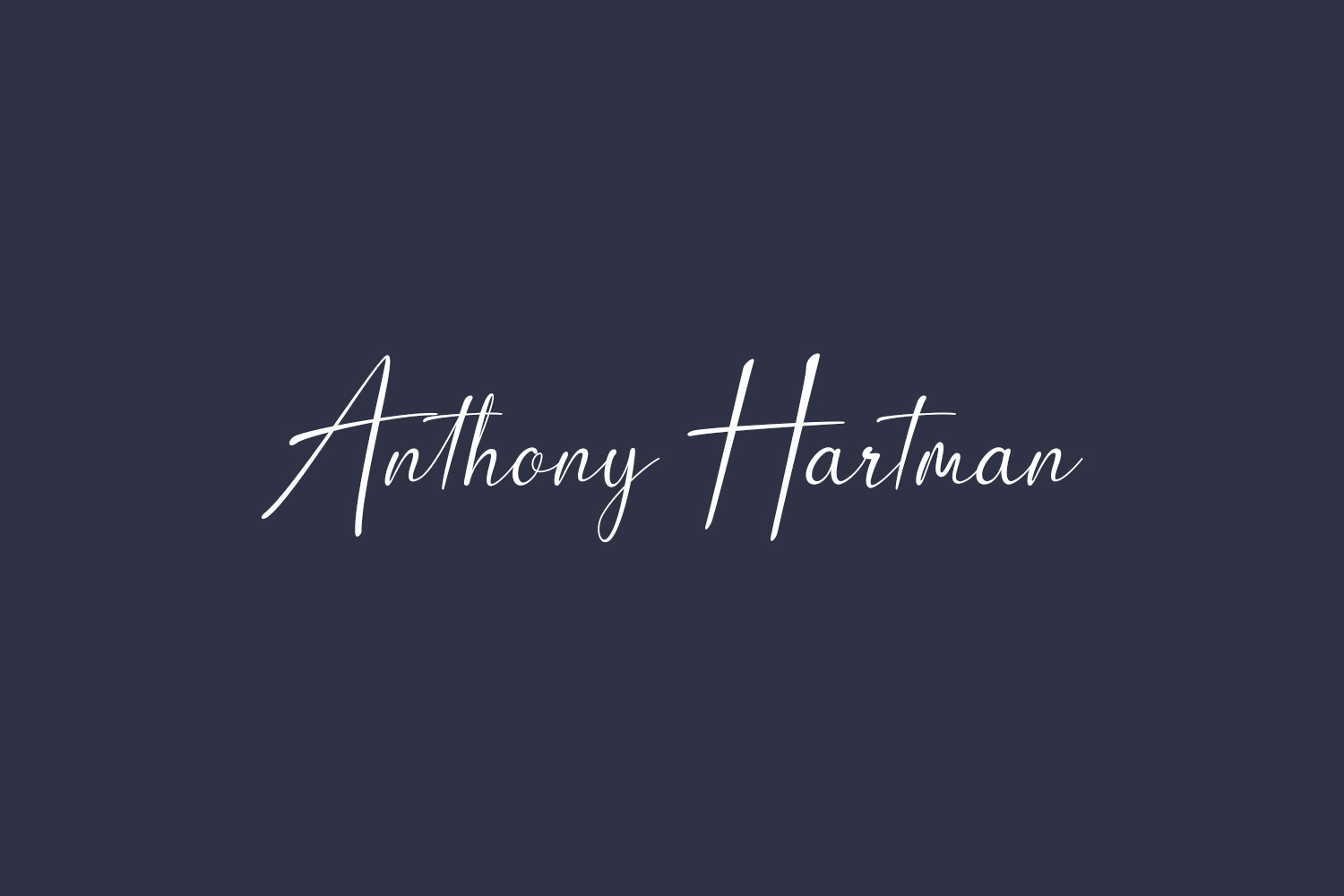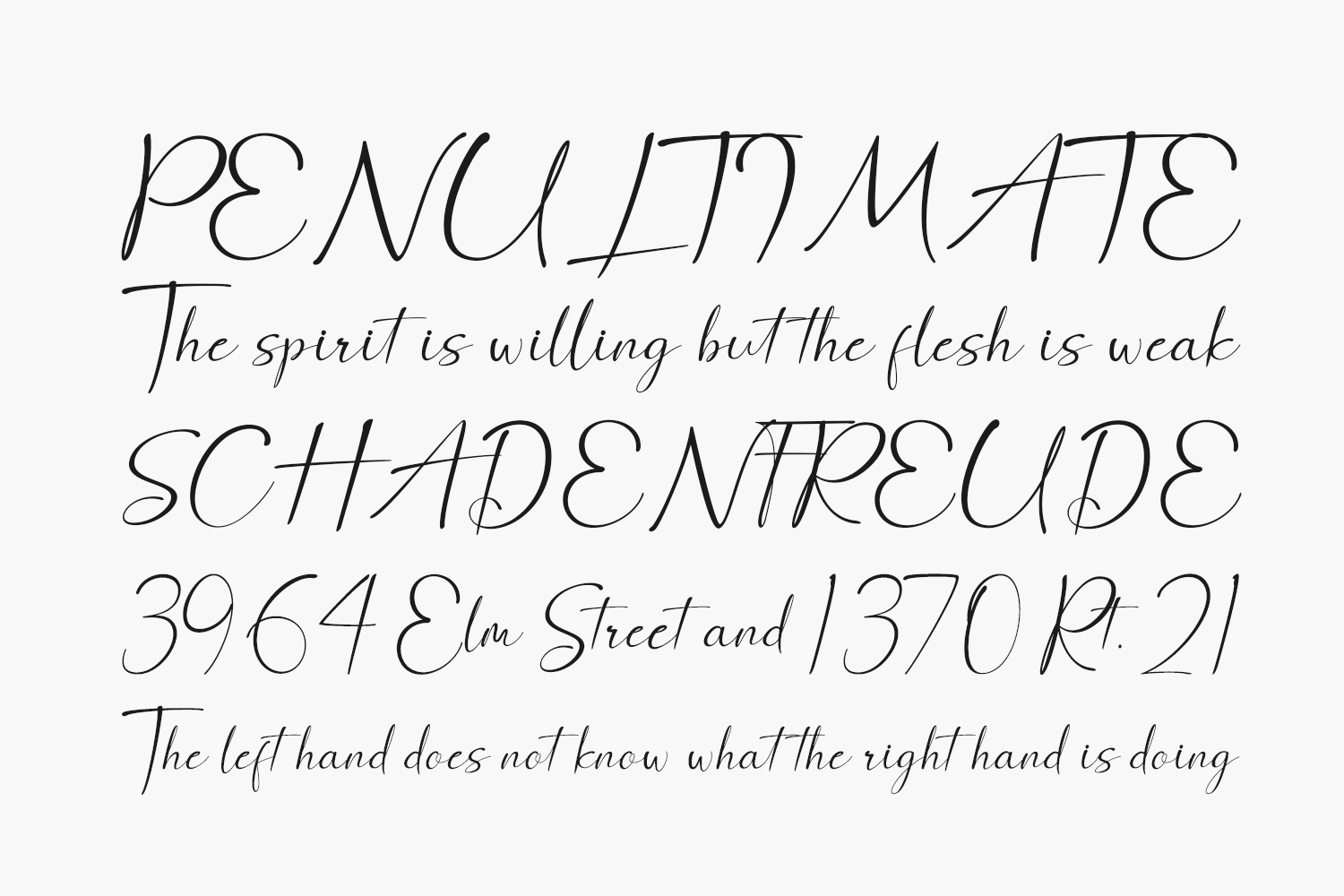
Anthony Hartman Free Font is a beautiful and refined script font. It has a classy, elegant, and modern look that can be used for logos, branding, invitations, stationery, wedding designs, social media posts, and much more. Anthony Hartman Free Font was designed by Letterena Studios and is free for personal use only. Please purchase the full version for commercial use.